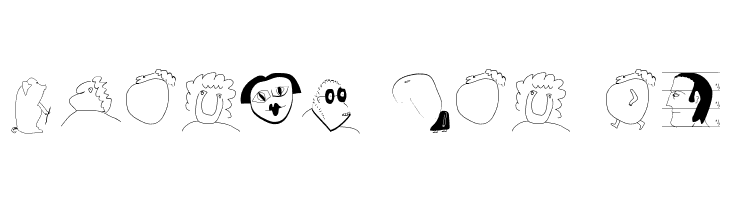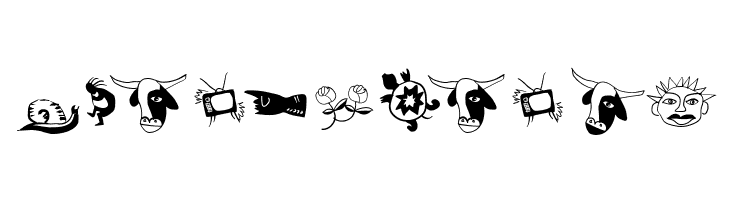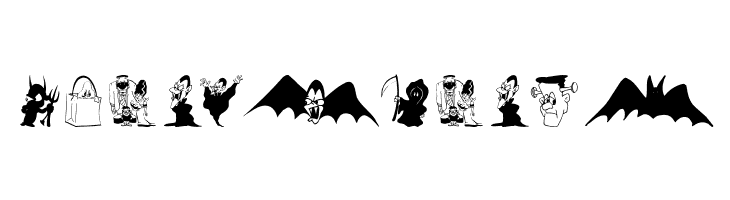
• MusiciansOne
Cartoonish, illustrated font with musical character scenes.
• Pillo Talk Soft
A playful, hand-drawn font with a bold, cartoonish style.
• SpaceCommedians
Playful dingbat font of space-themed cartoon characters and objects.
• DinkPatz
Retro cartoon dingbat set with bold, humorous illustrations.
• Deibel
A playful collection of devilish character illustrations in a cartoonish style.
• MouseScribbles
A whimsical font featuring cartoonish illustrations within each character.
• NextGeneration
A whimsical and playful font with cartoonish characters and bold, dynamic designs.
• WacObats
A whimsical and decorative font with playful, cartoonish illustrations.
• ComicFaces
Cartoonish font with expressive faces for each character.
• PrettyPeople
A decorative Halloween-themed font with playful, cartoonish illustrations.